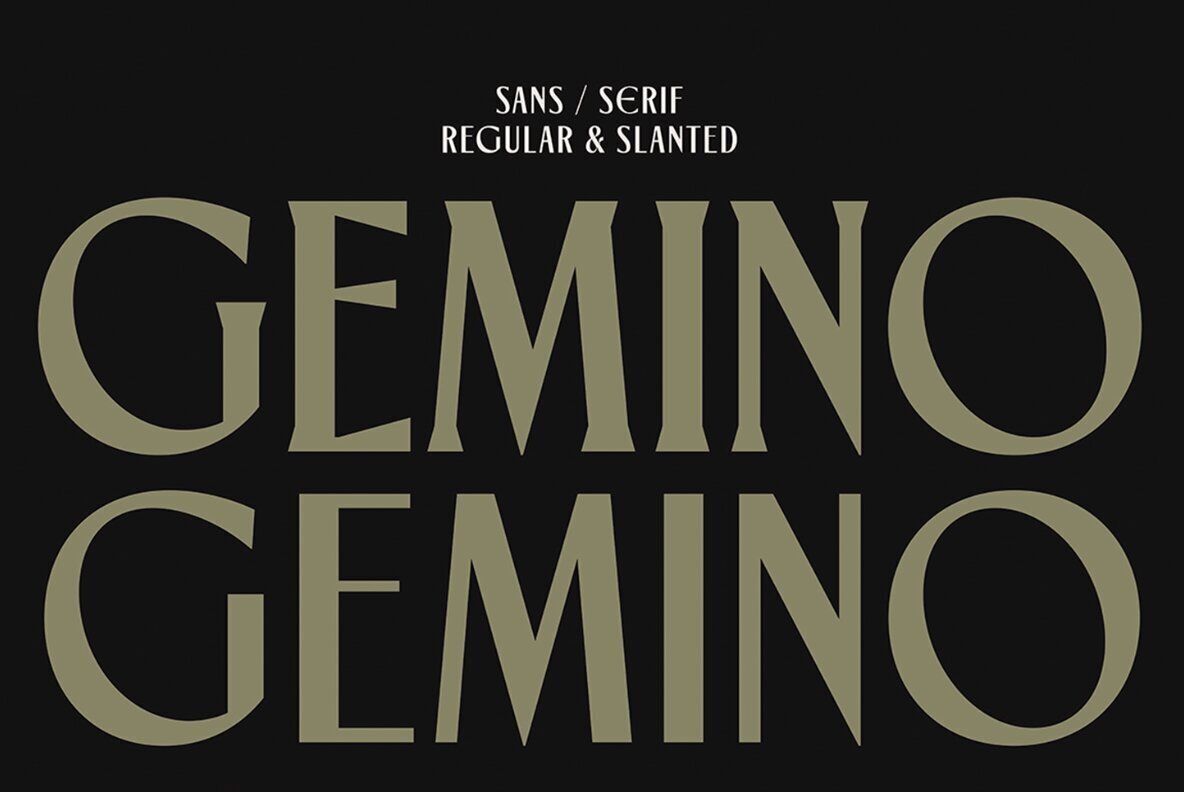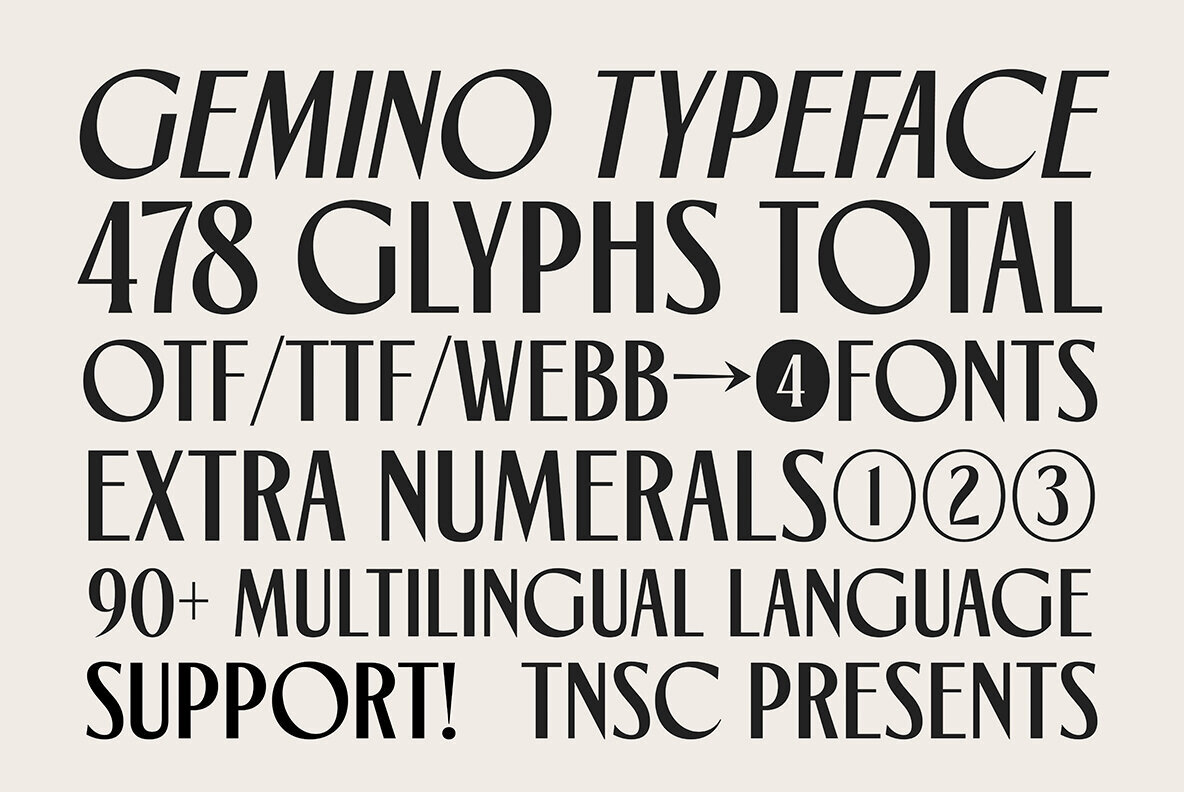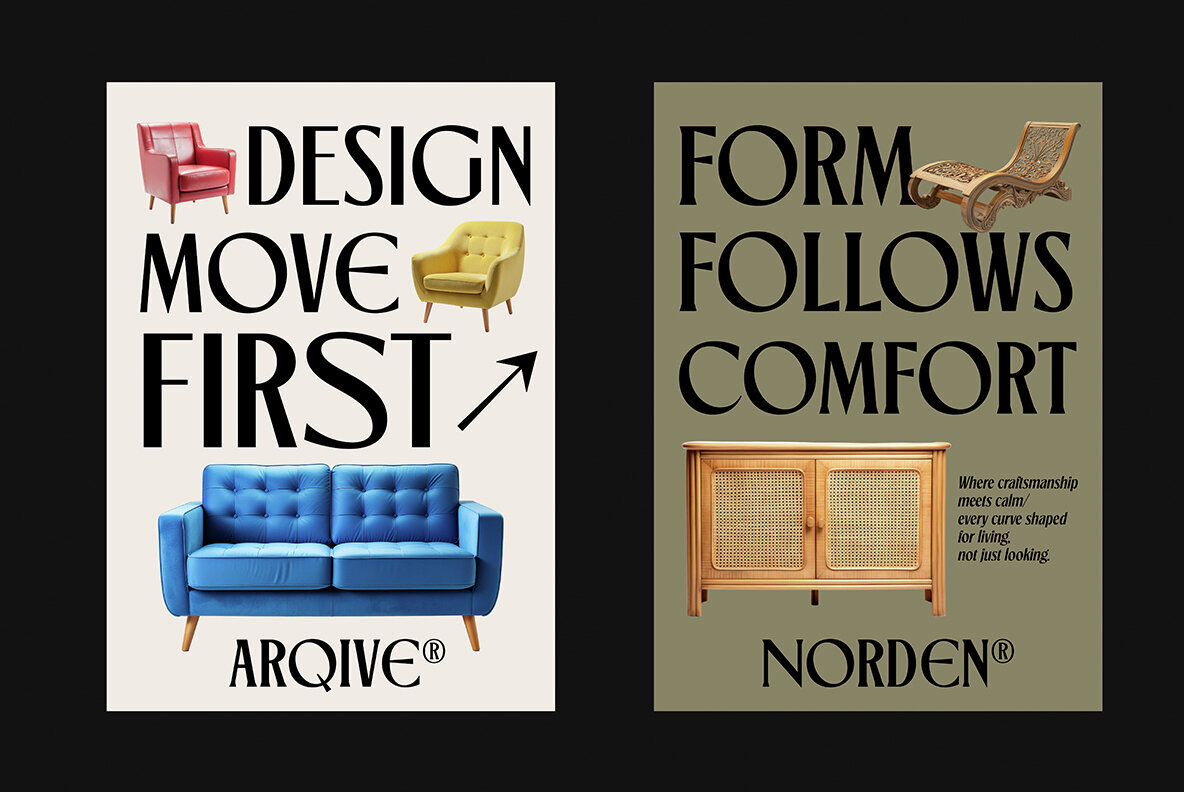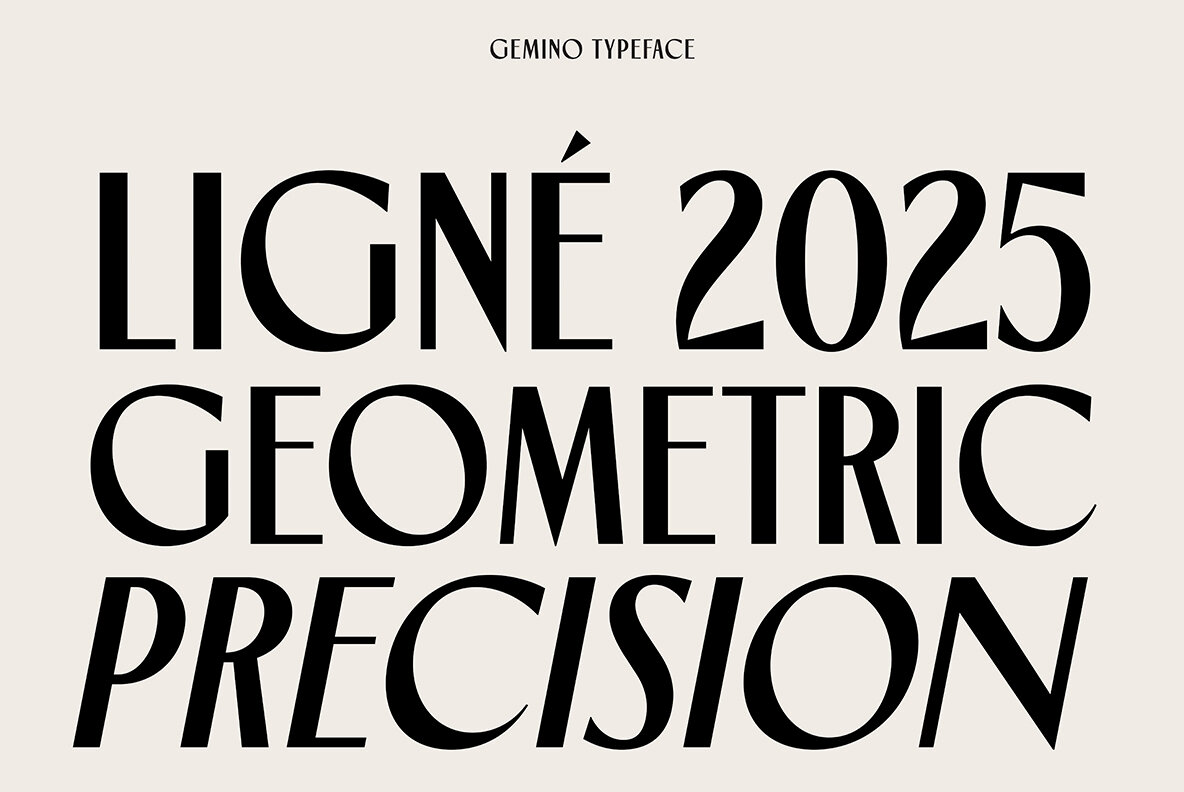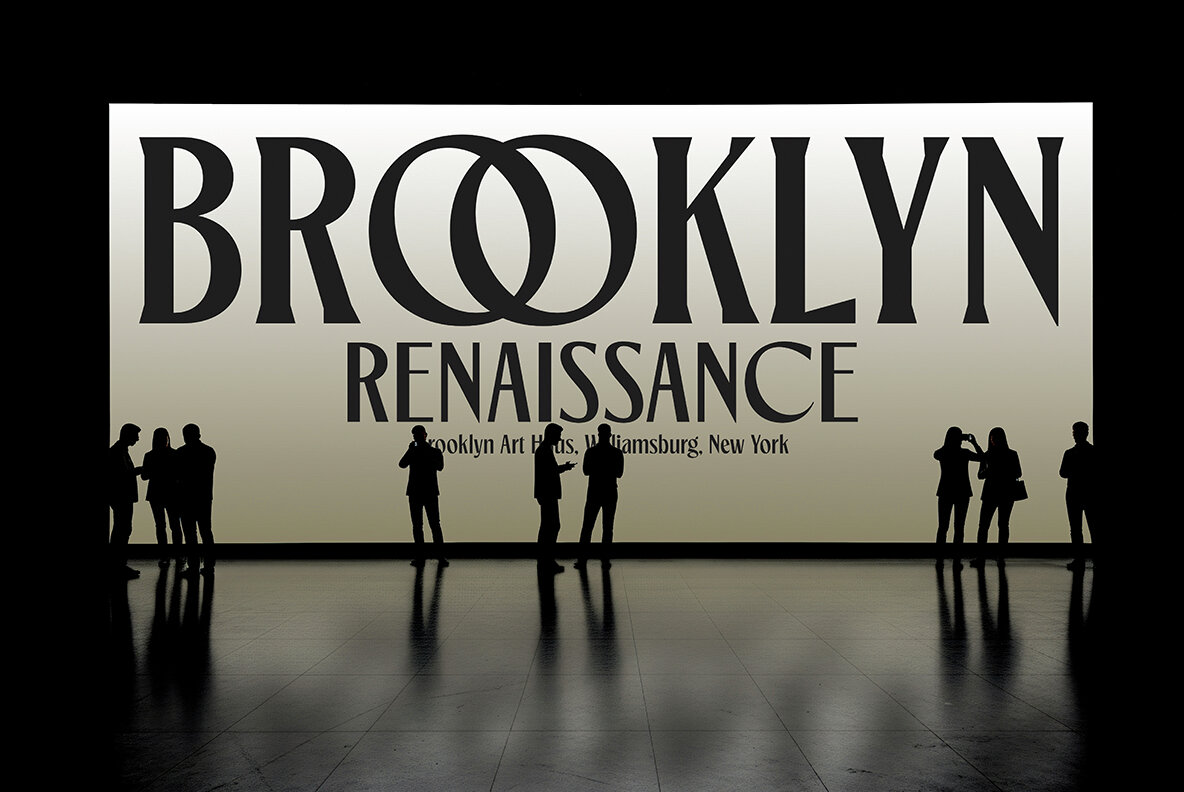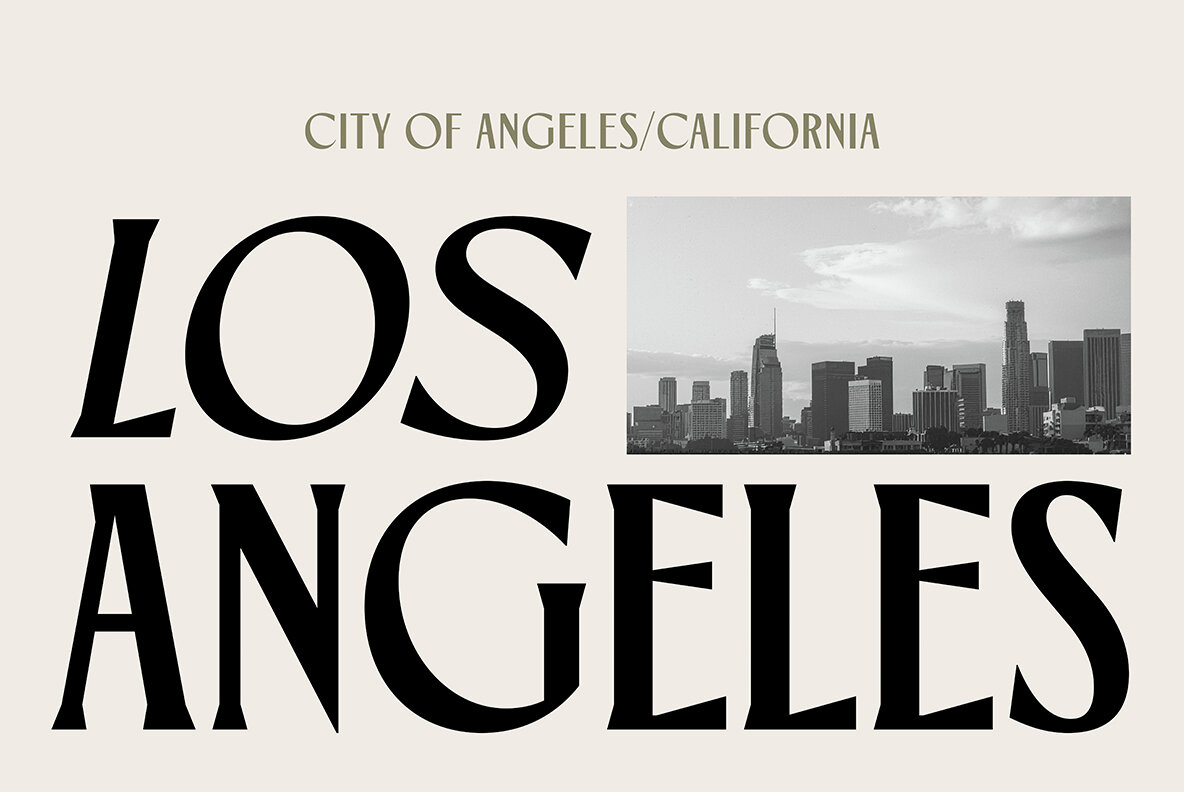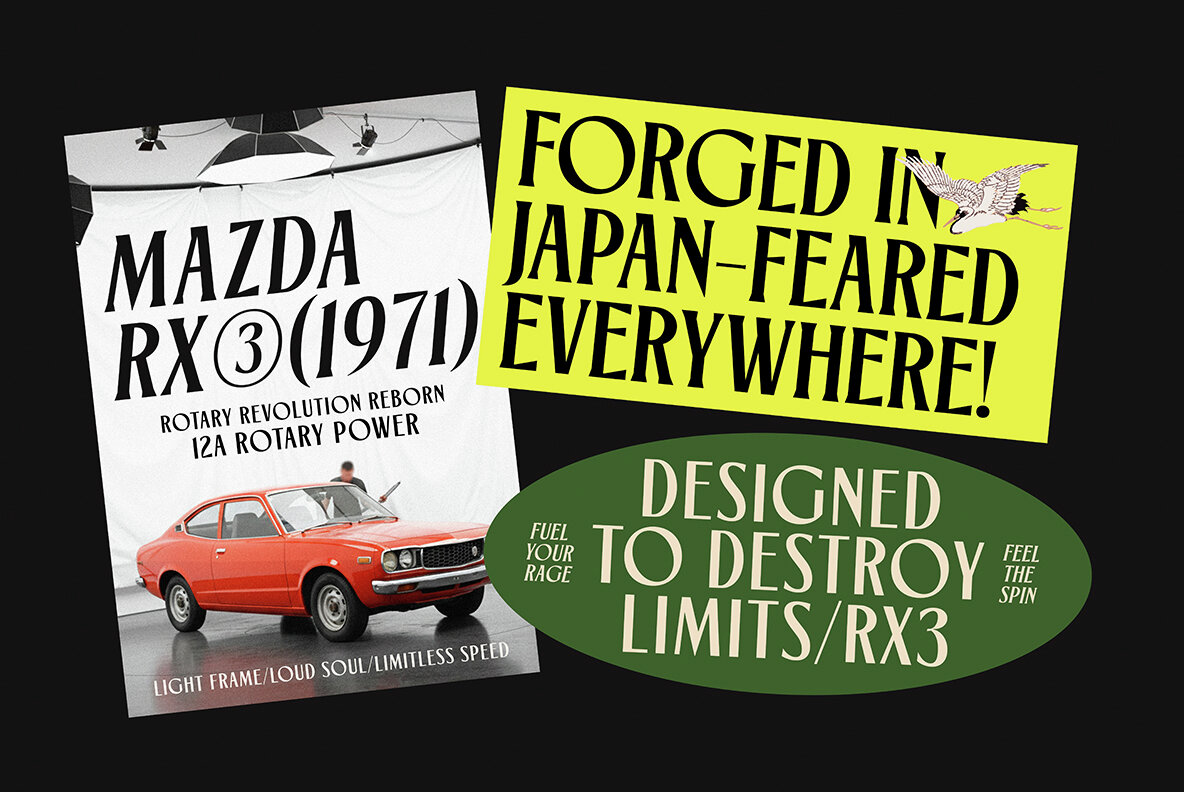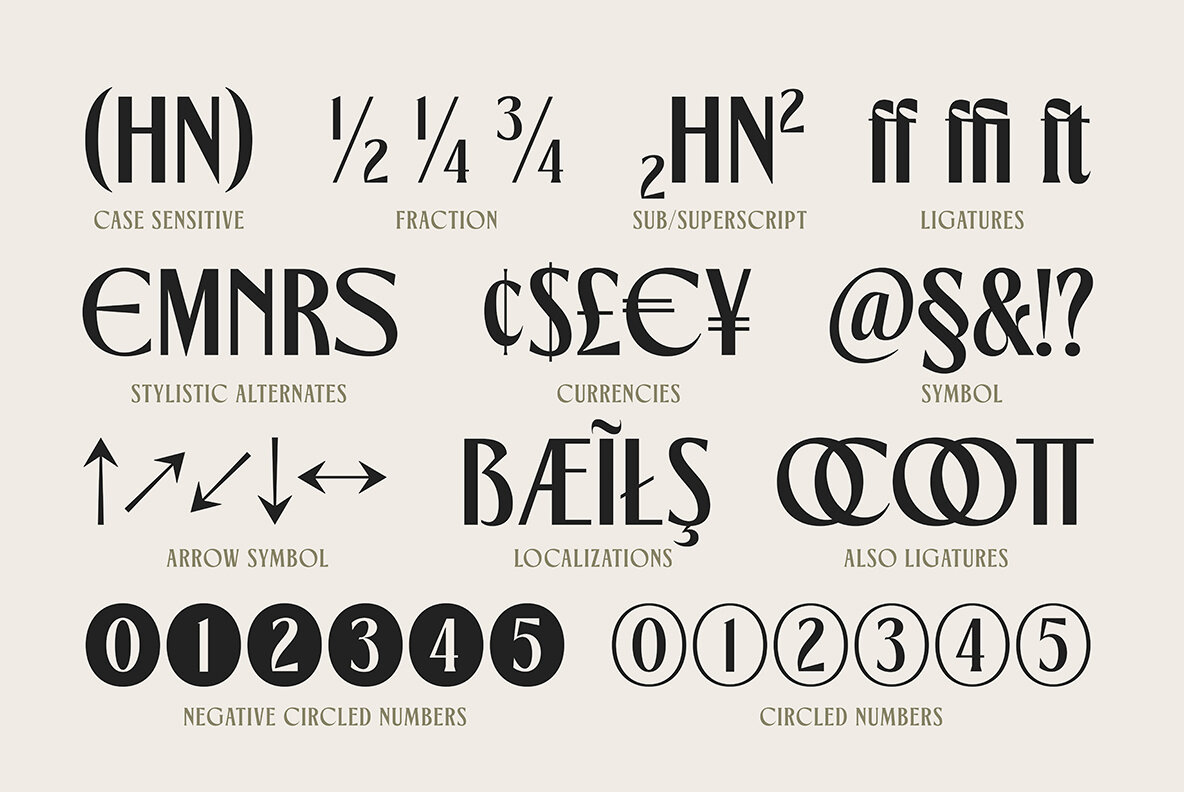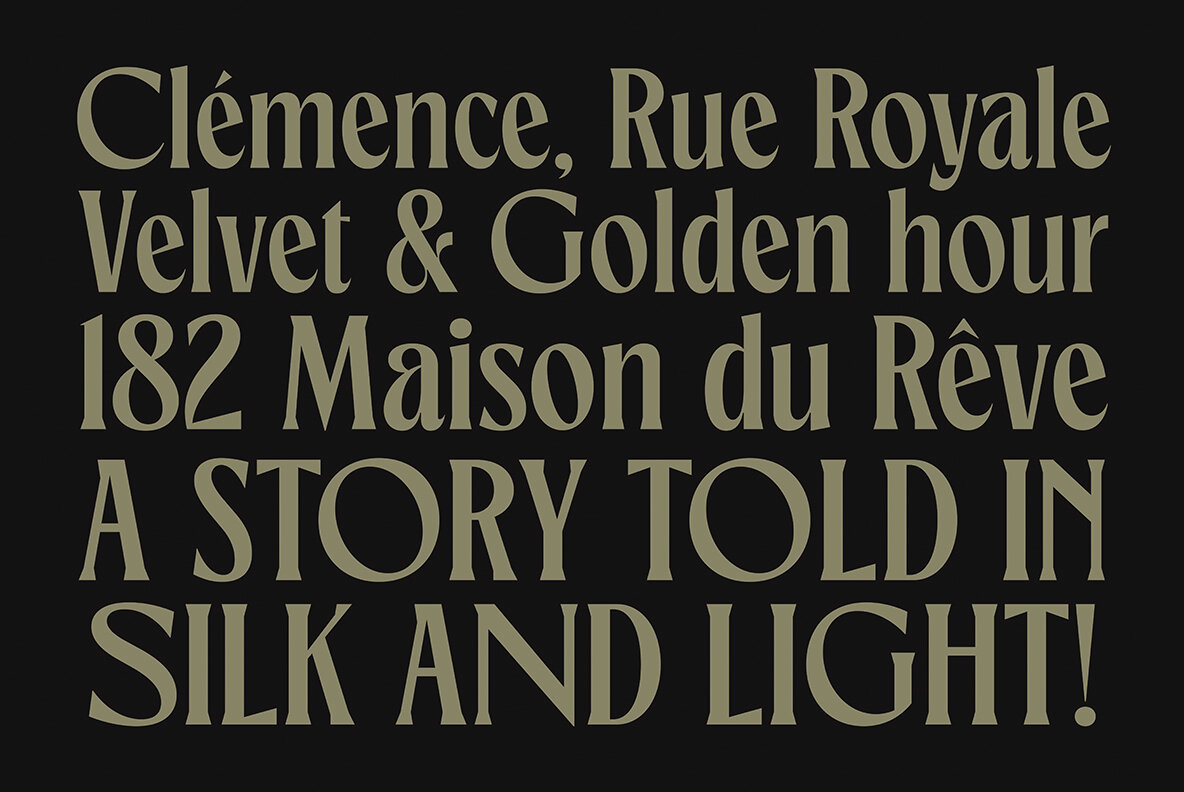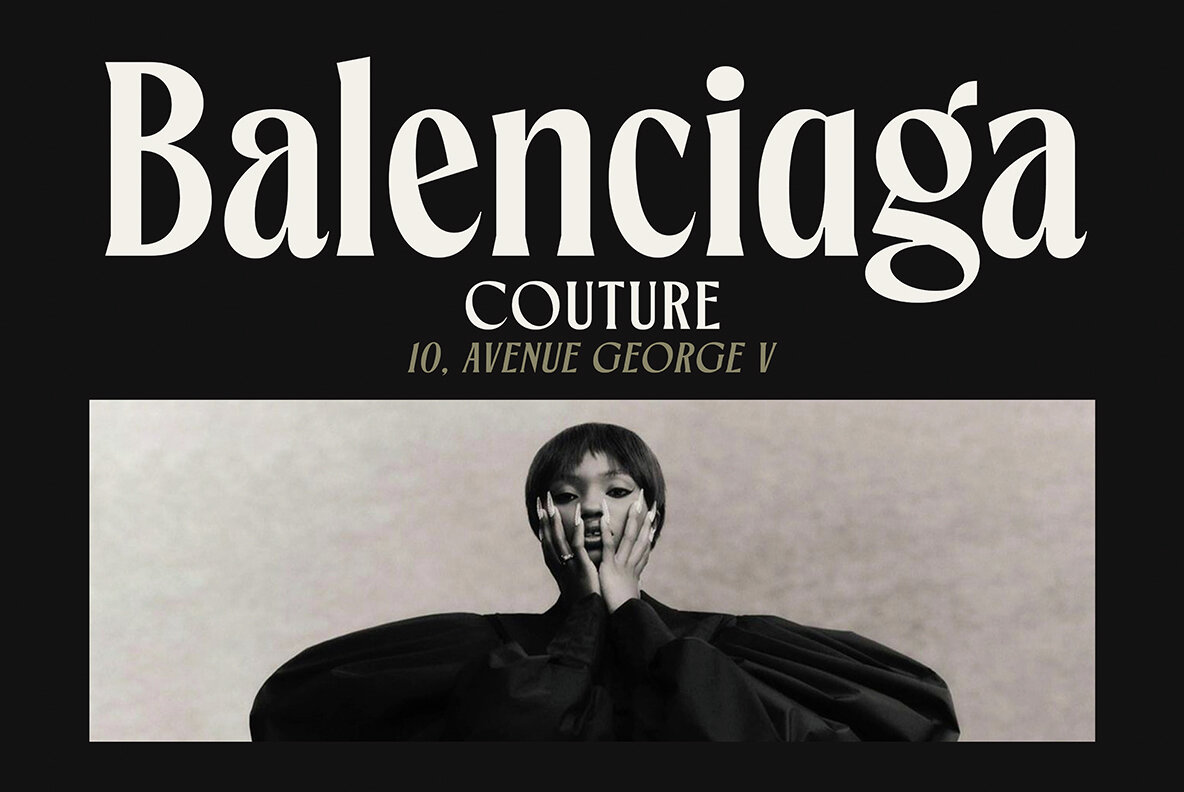
TNSC Gemino Font
TNSC GEMINO stands out in contemporary type design, balancing a distinctive editorial edge with refined sophistication. This typeface combines sans and serif options, delivering flexibility and precision for designers seeking clarity and visual impact. The collection features 478 glyphs, providing robust multilingual support for international projects. Engineered for both print and digital media, TNSC GEMINO adapts seamlessly across a diverse range of applications. From fashion branding and magazine headlines to packaging or sophisticated social feed visuals, this typeface maintains coherence and authority in any context.TNSC GEMINO: Editorial Typeface With Sans and Serif Styles